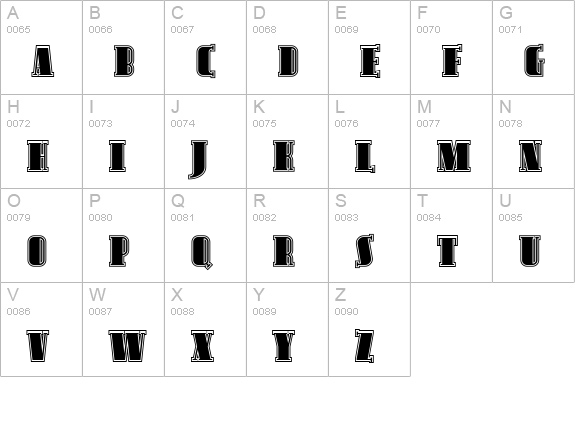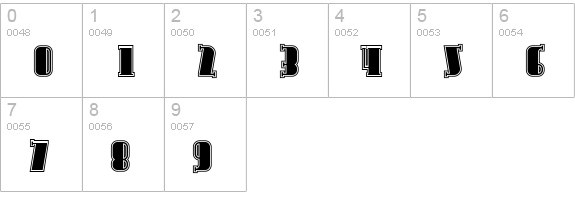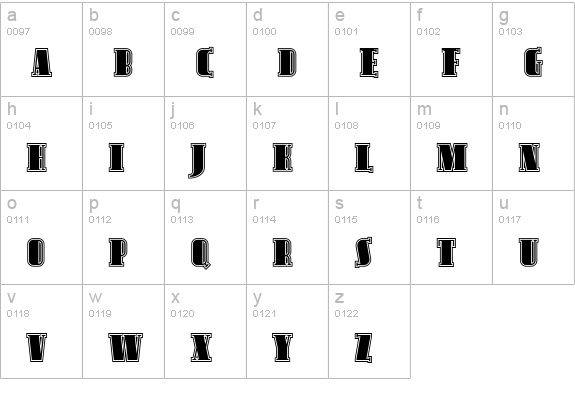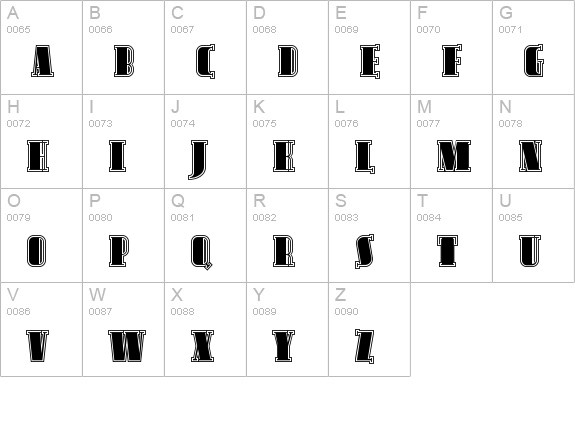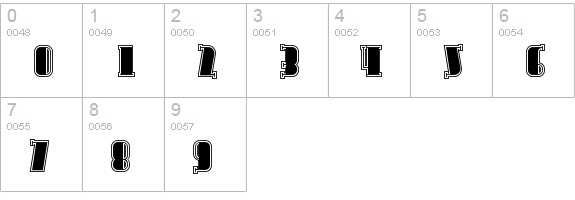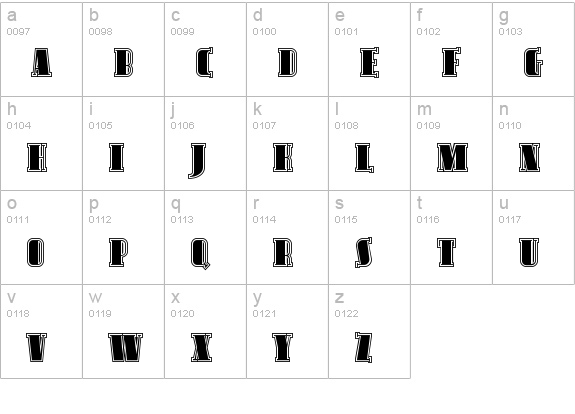
Avondale SC Inline Font Details
Avondale SC Inline font is a charming and elegant typeface that exudes a sense of sophistication and style. With its unique inline design, this font is perfect for adding a touch of flair to your projects. Its clean lines and distinctive look make it a versatile choice for a wide range of design applications, from branding to editorial design. Best of all, Avondale SC Inline font is available for free download at FontsMarket.com. This means you can easily access this beautiful font and use it in your projects without any cost. Whether you're working on a personal project or a professional design, Avondale SC Inline font is sure to elevate your work and make a memorable impression.